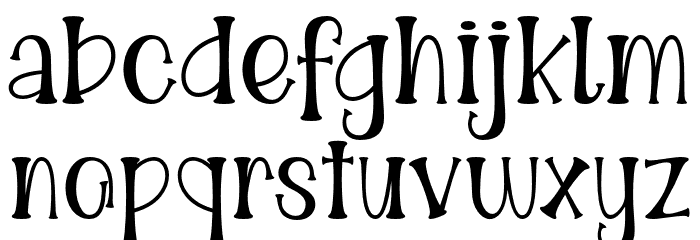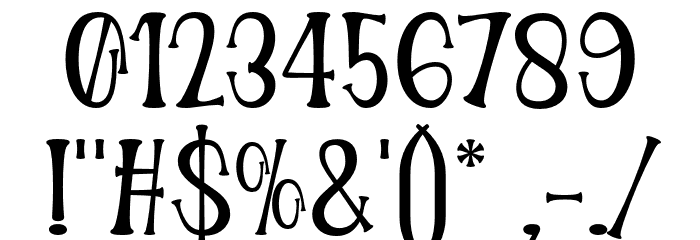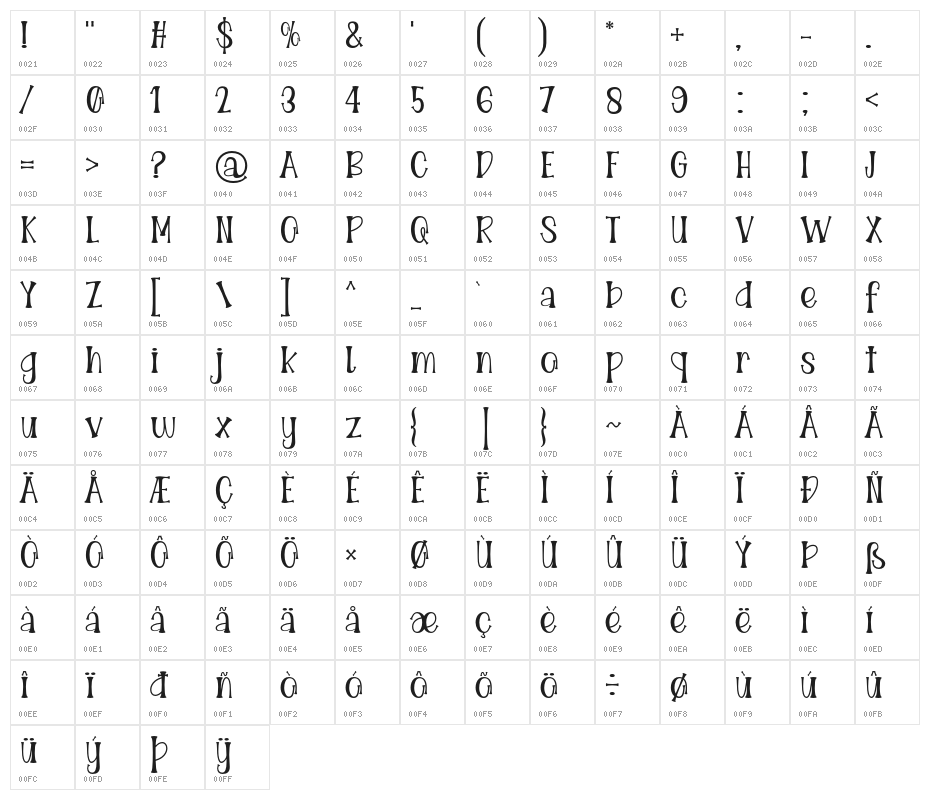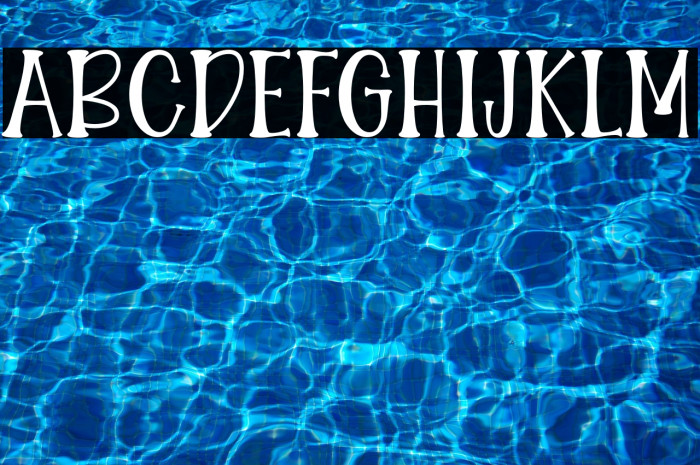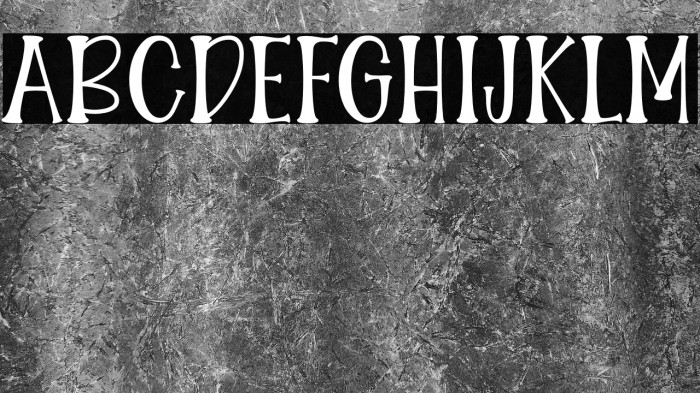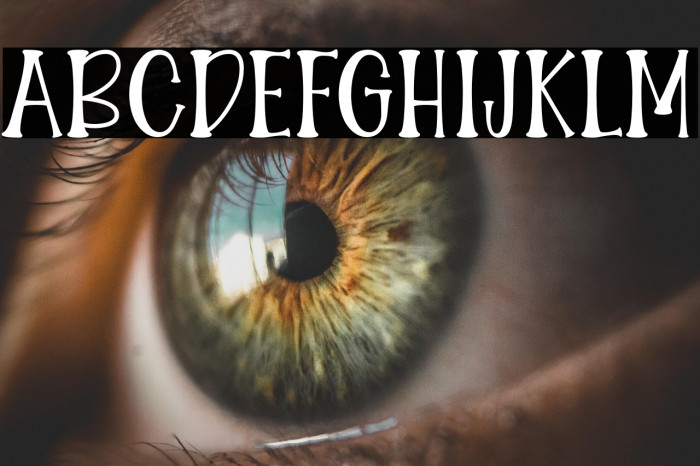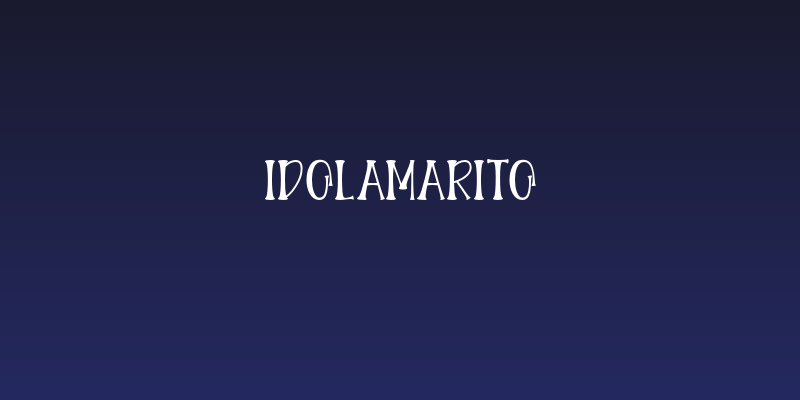
IdolaMarito Font
This font features a whimsical and playful design with a hand-drawn aesthetic. The characters exhibit a unique blend of curves and sharp edges, giving it a lively and dynamic appearance. The uppercase letters are bold and slightly irregular, while the lowercase letters maintain a consistent flow with a touch of quirkiness. The numerals are distinct and maintain the playful style, making them easily recognizable. Special characters are creatively designed, adding to the overall charm of the font. This style is perfect for projects that require a fun and engaging look.
A whimsical, hand-drawn font with playful curves and sharp edges.
- Font: IdolaMarito
- Proposed Projects: Ideal for children's books, playful branding, greeting cards, and creative posters.
- Overall Style: Playful, Whimsical